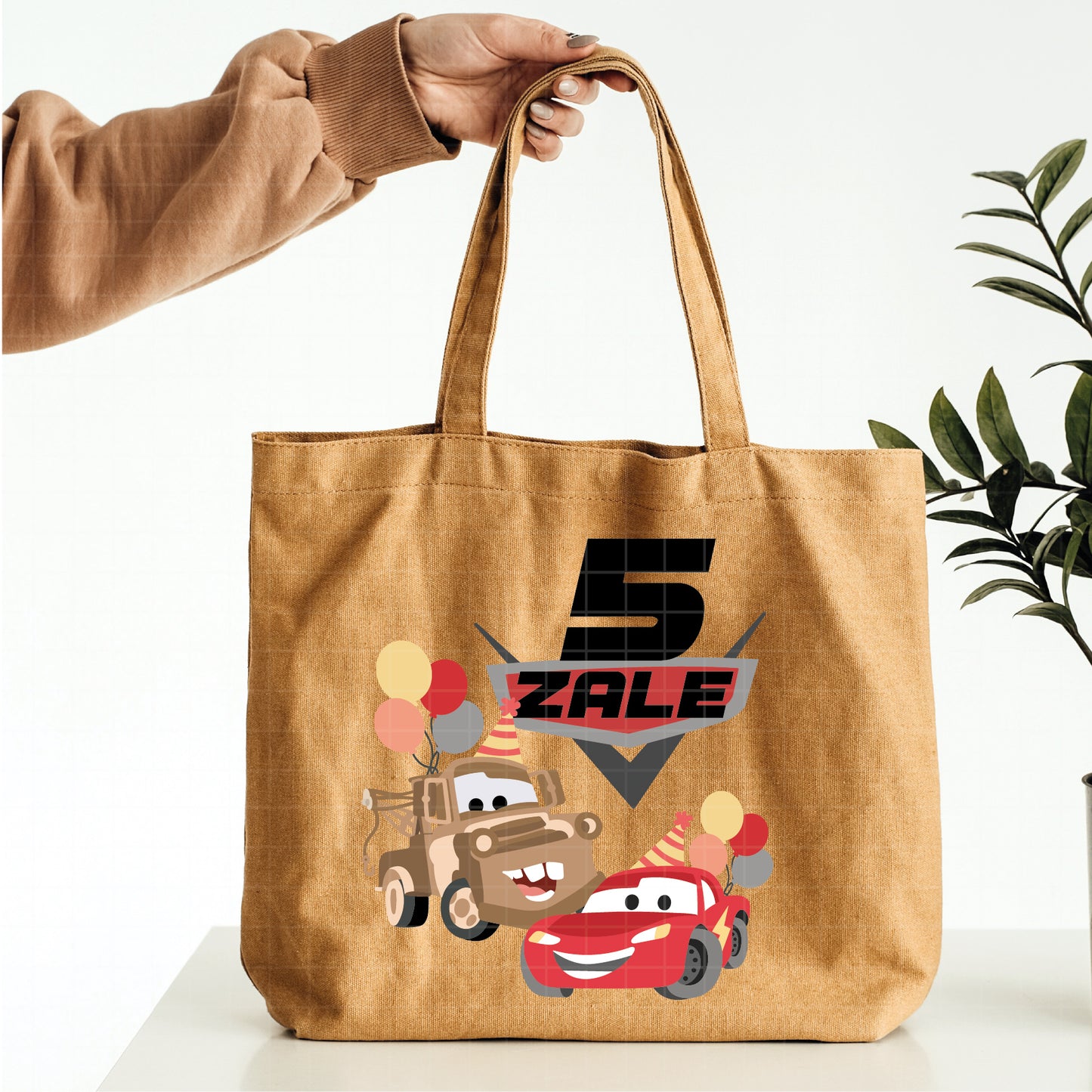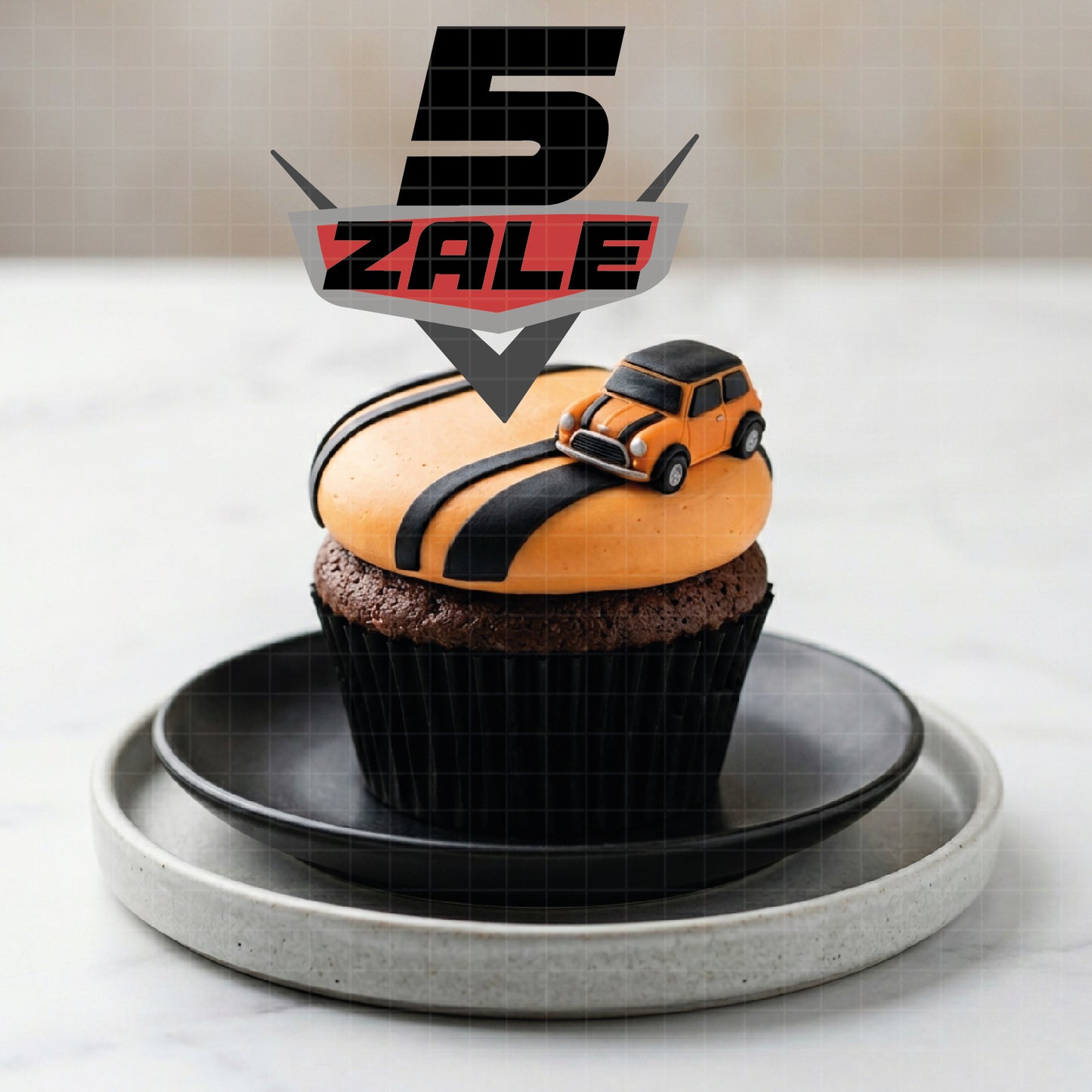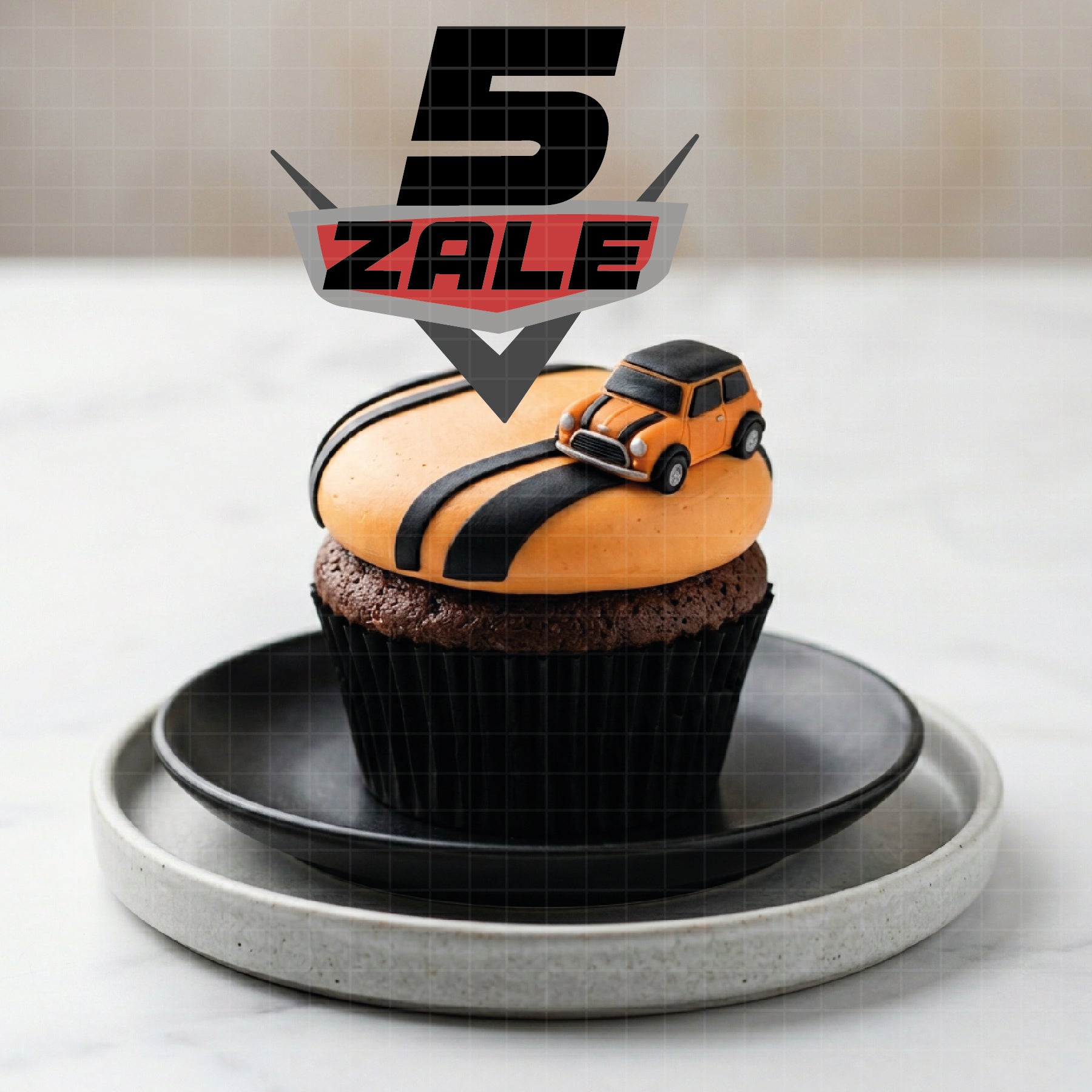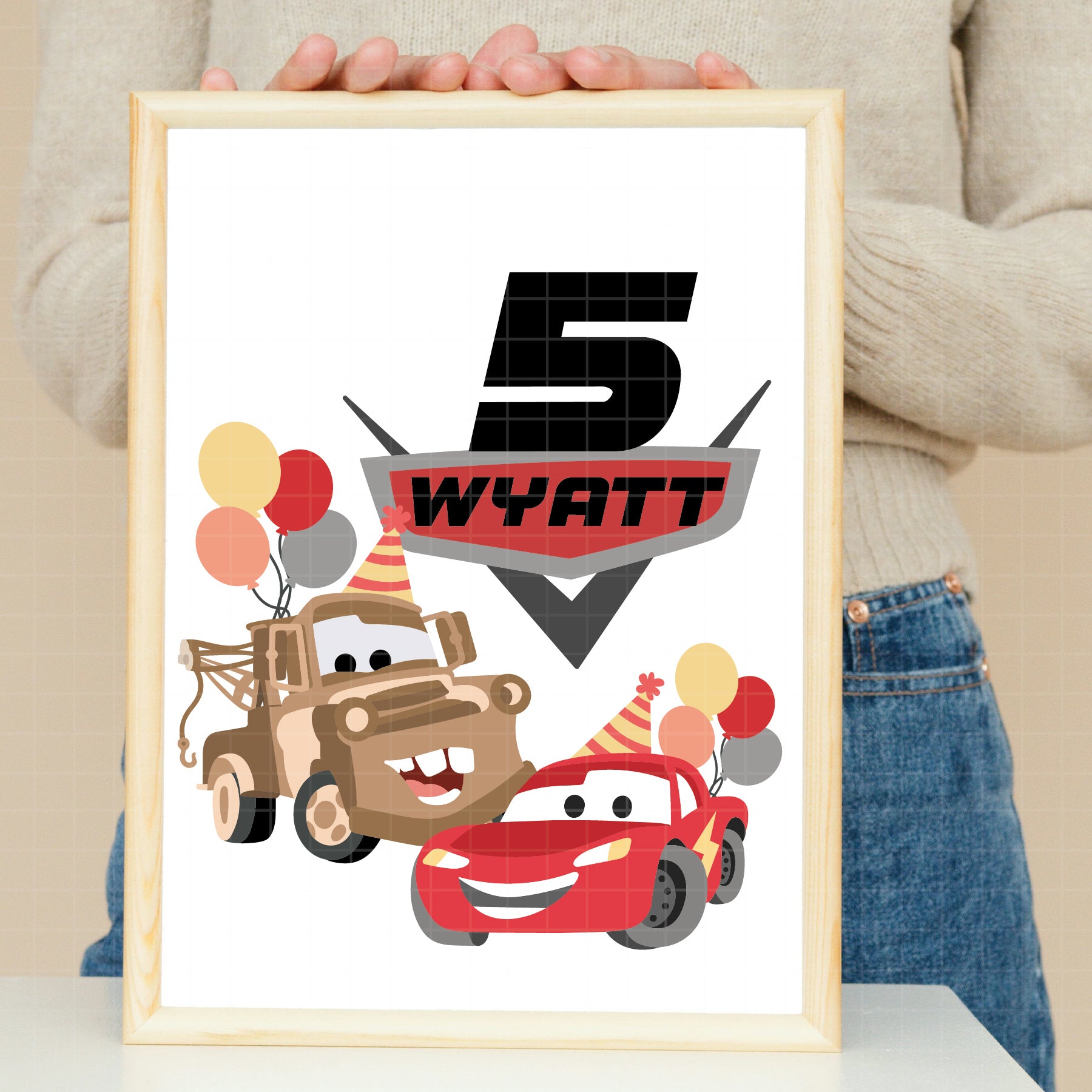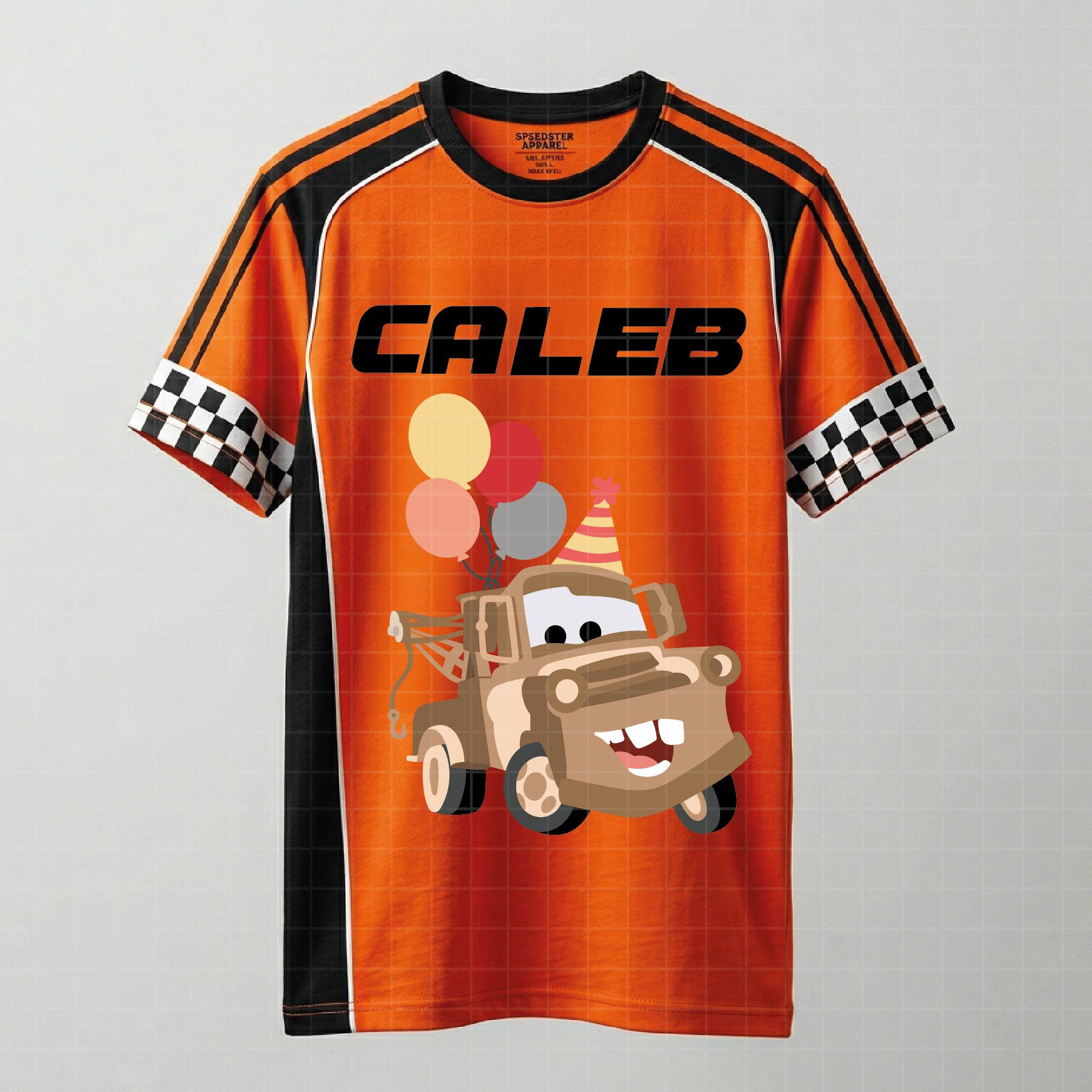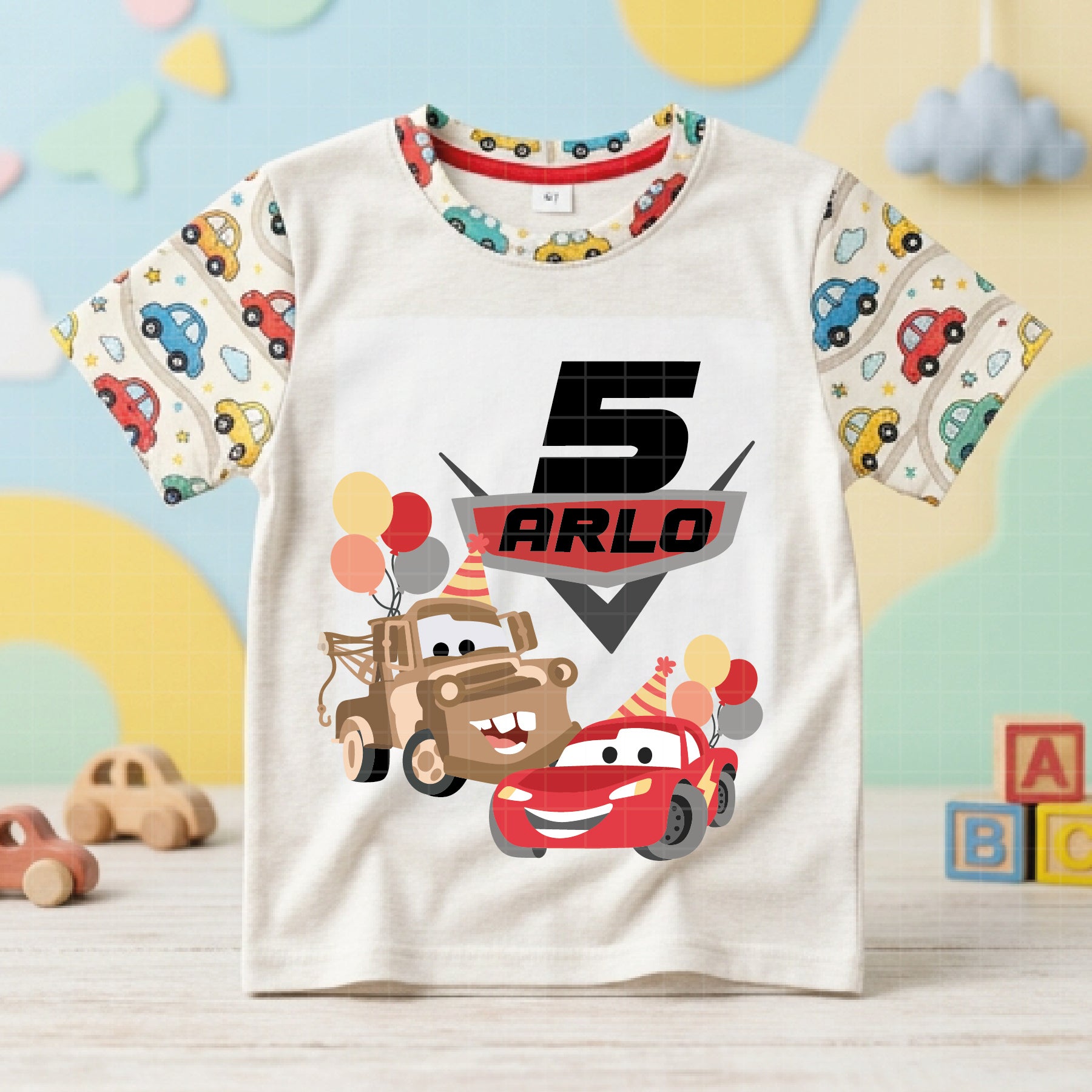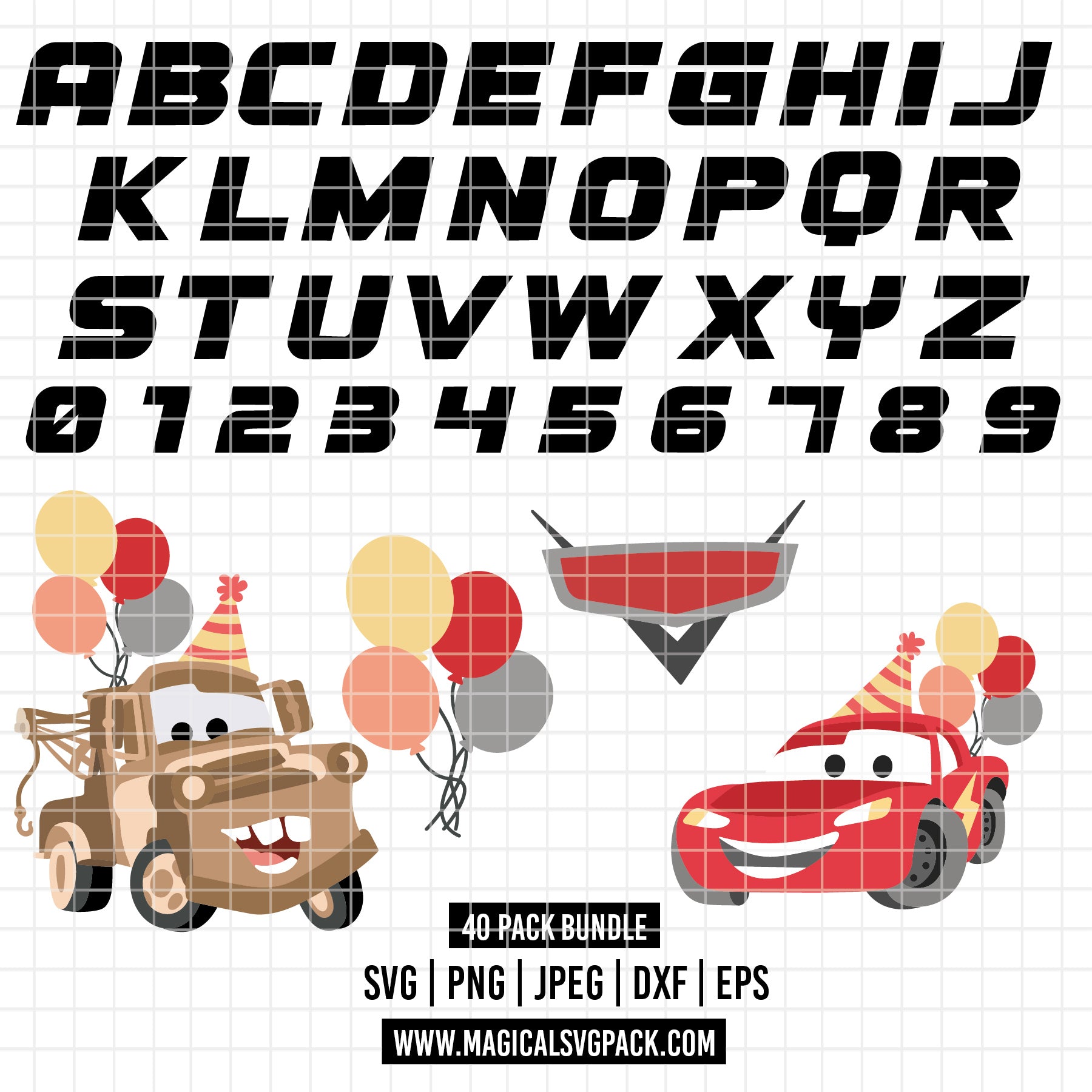
COD6145 - Cars SVG PNG Bundle | Cricut Instant Download | Speed Stripe Racing Font Lightning McQueen Mater Custom Name | Numbers Cars Logo
🏁 CARS RACING SVG BUNDLE — Bold Speed Stripe Font + Lightning McQueen + Mater + icons + Full Alphabet + Numbers | Custom Name Ready!
Use the bold speed stripe alphabet to spell any name and combine it with the numbers and character cliparts to create fully personalized designs.
✔ Full Alphabet A–Z UPPERCASE (bold condensed italic with speed stripe lines)
✔ Numbers 0–9 (matching speed stripe style)
✔ Lightning McQueen with party hat & balloons
✔ Tow Mater with party hat & balloons
✔ Cars logo / emblem icon
✔ Balloon cluster icon